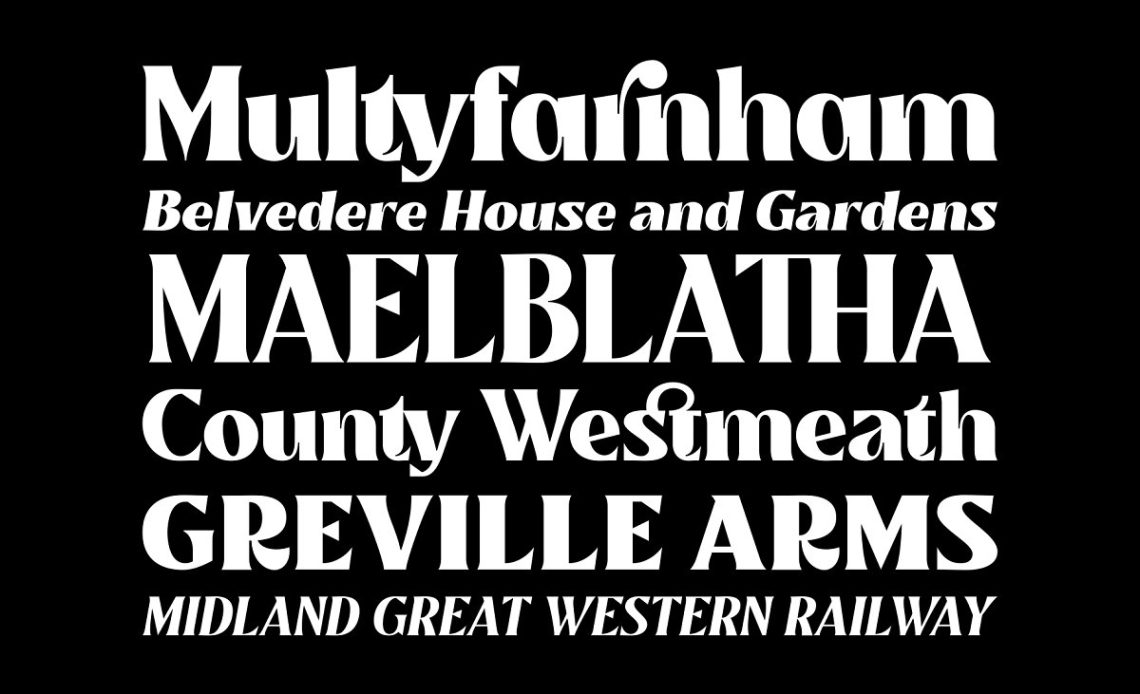
Introducing Mullingar, the captivating display typeface that will take your designs to the next level! Created by Fahrizal Tawakkal, this font is inspired by the timeless charm of old advertisements and signpainting culture, with a modern twist to keep it fresh and relevant.
Mullingar's letterforms are bold, blocky, and filled with unique serif combinations. The clean and smooth curves, along with sharp edges, add a touch of magic to every character. With six styles to choose from (Regular, Bold, Light, and Slanted in each version), Mullingar guarantees to bring joy to your design process.
This font family is reminiscent of retro sign painting, making it a perfect fit for a wide range of design themes. Its blocky characters shine in bold signage, captivating headlines, eye-catching advertising, memorable logo designs, striking product packaging, trendy merchandise, impactful apparel, stunning posters, mesmerizing album artwork, and captivating book covers. Let your creativity soar with Mullingar's versatile titling possibilities!
But wait, there's more! Mullingar goes beyond its stunning aesthetics with its OpenType features. Discover the beauty of discretionary ligatures, standard ligatures, and stylistic alternates, giving you even more design possibilities. And with its extensive multilingual support, including Basic Latin, Western European, Euro, and Pan African Latin languages, Mullingar is perfect for captivating design projects with an international audience.